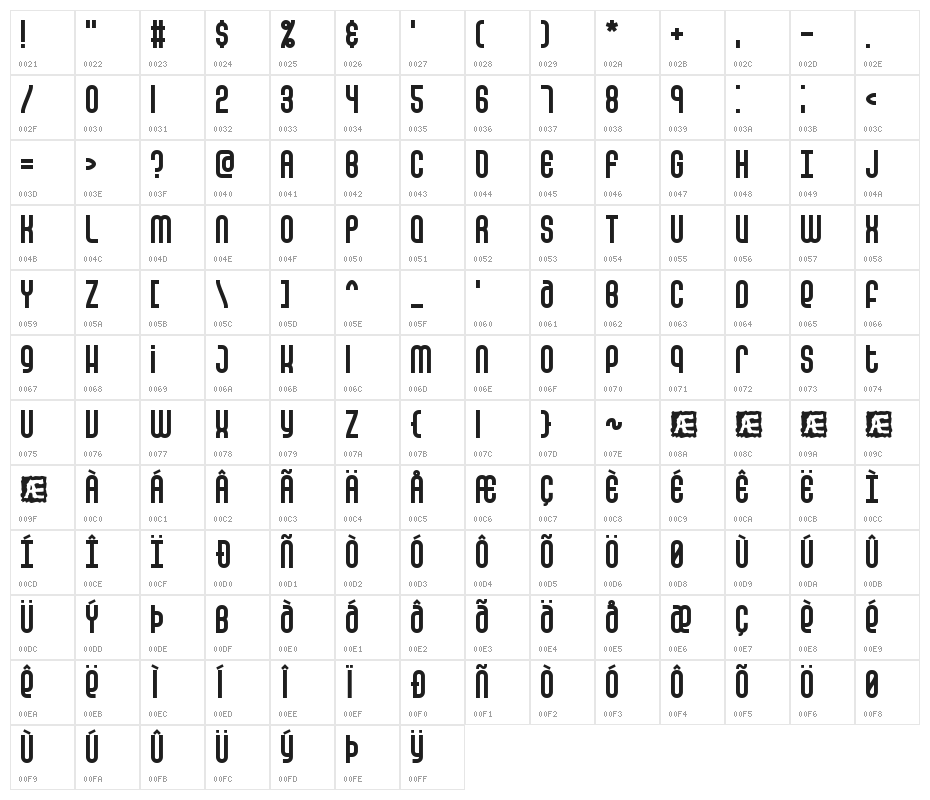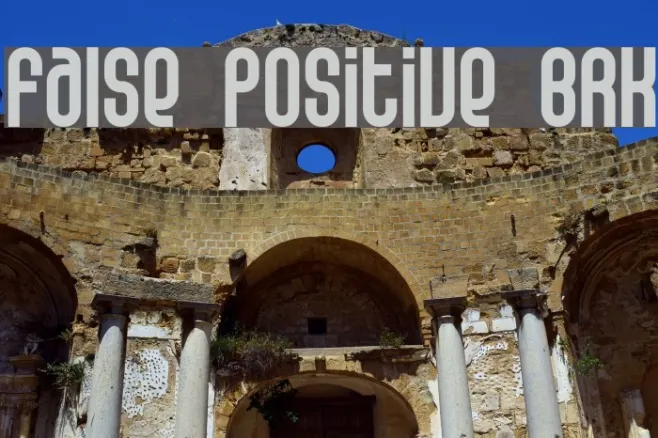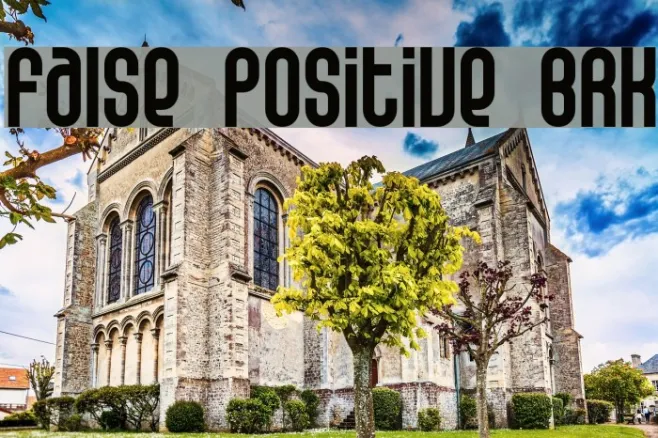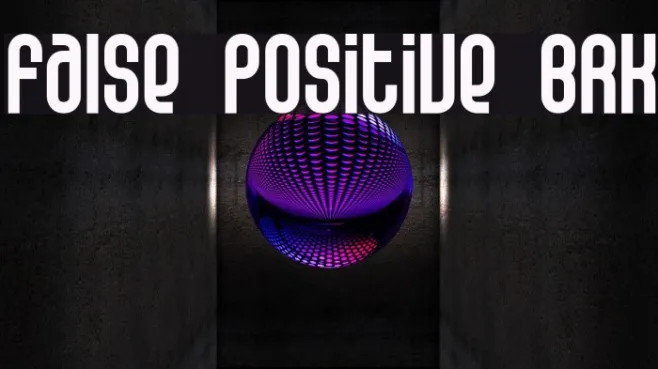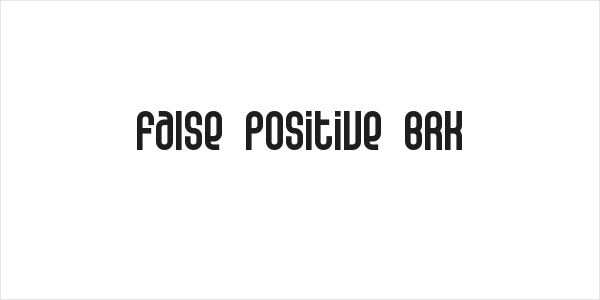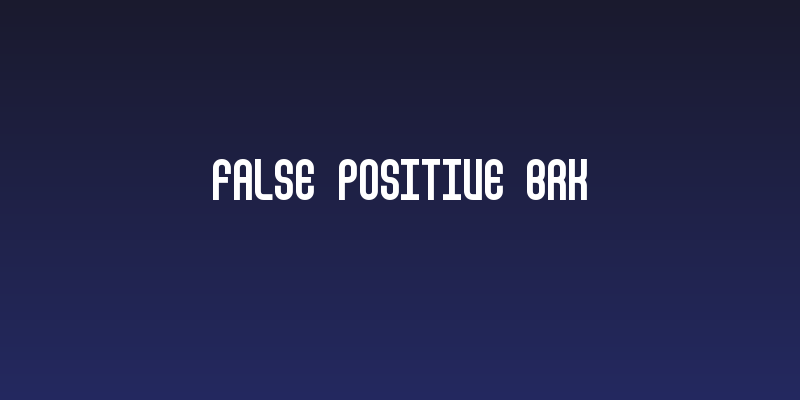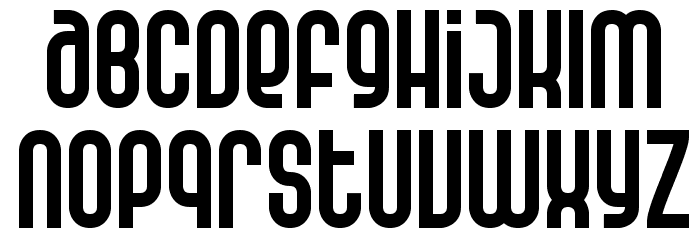
False Positive BRK Font
False Positive BRK Description
This font features a bold and modern design with a geometric and structured appearance. The characters are tall and narrow, giving it a condensed look. The strokes are consistent in width, providing a uniform and clean aesthetic. The uppercase and lowercase letters maintain a similar height, enhancing its compact style. The numbers and special characters follow the same design principles, ensuring a cohesive look across all elements. This font is ideal for making a strong visual impact while maintaining readability.
| Proposed Projects | Perfect for headlines, posters, branding, and advertising where a strong and modern presence is desired. |